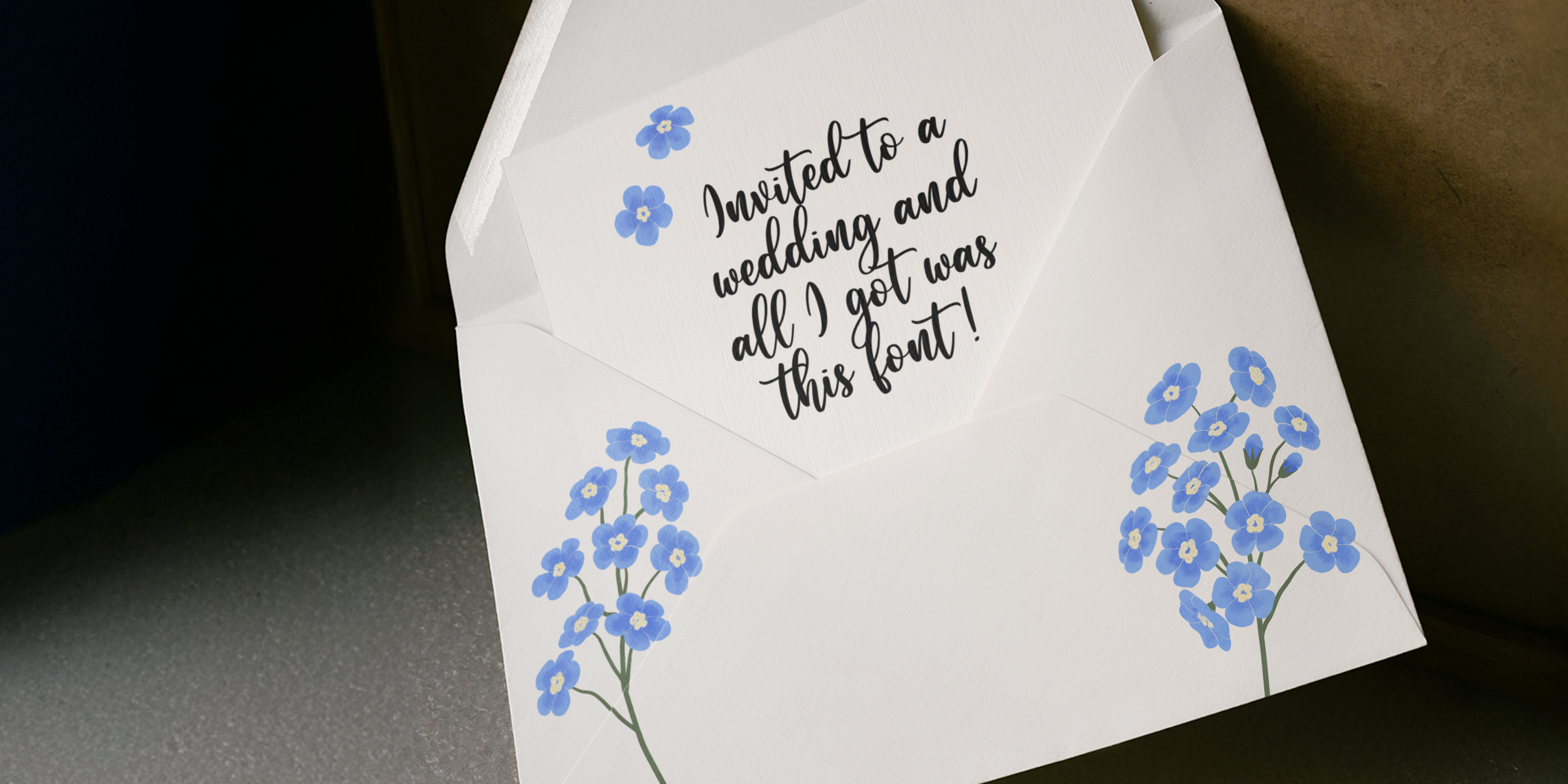
Wedding Whimsy — Marie Boulanger Explores Popularity of Brush Calligraphy Typefaces with The Independent
Why do certain font styles become ubiquitous? In the wedding industry, an approachable brush calligraphy style has quickly become the norm for everything from invitations, to personalized wedding favors like wine glasses and robes, to name cards and banners.